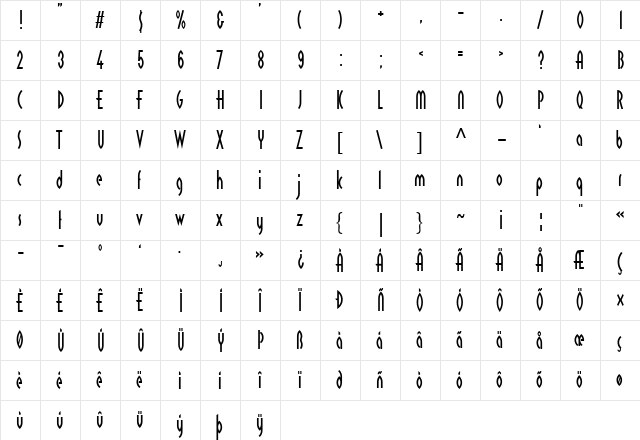
LTReducta Medium Font Preview
LTReducta Medium
LTReducta Medium Font Details
Design Context for LTReducta Typeface
LTReducta takes a measured approach to typography — its balanced proportions and neutral character make it a reliable workhorse for both digital and print work.